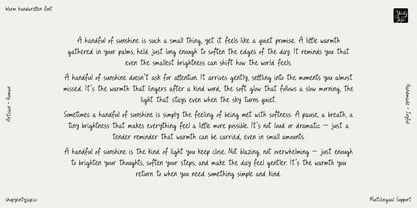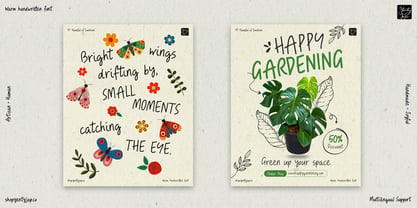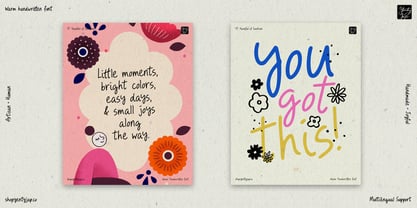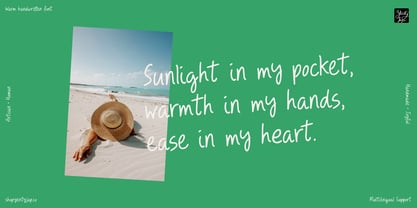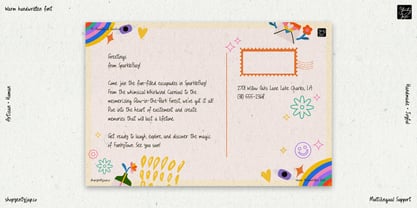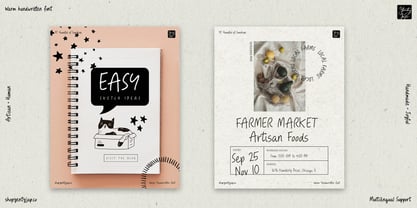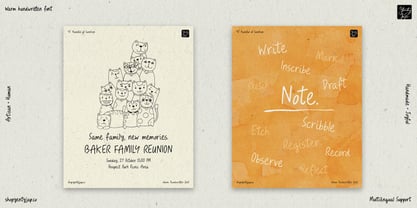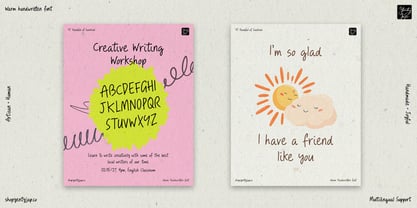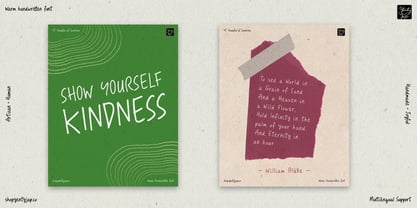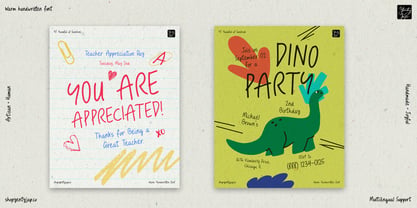
YJ Handful Of Sunshine
by Yenty Jap Co
The YJ Handful Of Sunshine Font Family was designed by Yenty Jap and published by Yenty Jap Co. YJ Handful Of Sunshine contains 1 styles. More about this family
YJ Handful of Sunshine was created to bring a calm, human handwriting voice into modern branding. Its intention comes from everyday writing — journaling, taking notes, marking small thoughts with warmth and clarity. The goal is to offer designers a handwriting option that feels approachable, readable, and suited to hospitality, lifestyle, and boutique branding.
The strokes are light and relaxed, with rounded terminals that keep the texture soft. Rhythm is loose but controlled, giving each word a natural flow without losing clarity. Spacing is open, allowing text to breathe in menus, packaging, and signage. Proportions stay steady across the alphabet, creating a handwriting style that feels warm, modern, and human. The overall personality is calm, expressive, and intentionally understated.
Within warm modern humanism, YJ Handful of Sunshine stands out by staying honest and simple. It avoids decorative flourishes and leans into everyday handwriting — clear, friendly, and intentionally imperfect. This makes it comfortable in real‑world applications where designers need a handwritten font for menus or a warm branding fontthat feels human without becoming stylized.
Ideal applications:
• Café menus
• Bakery packaging
• Boutique branding
• Lifestyle products
• Signage
• Labels
• Social content
• Wedding stationery
• Wellness branding
• Simple editorial accents